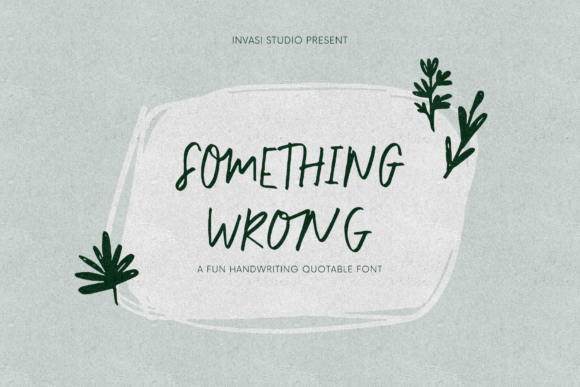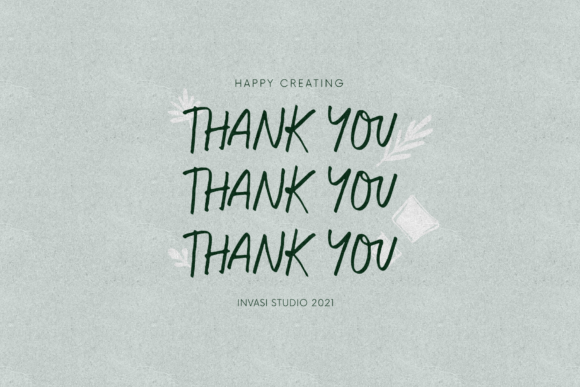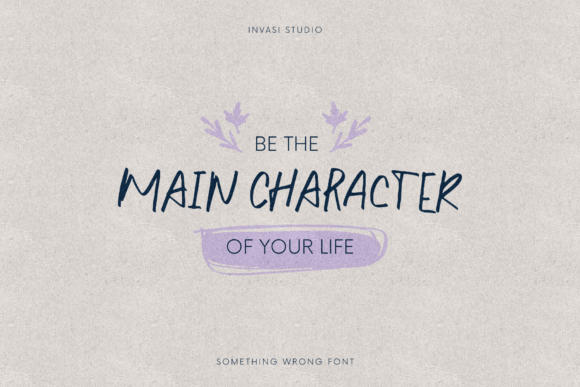
About Something Wrong Font
Something Wrong is a cool and adaptable handwritten font. It can easily be matched to an incredibly large set of projects, so add it to your creative ideas and notice how it makes them stand out!